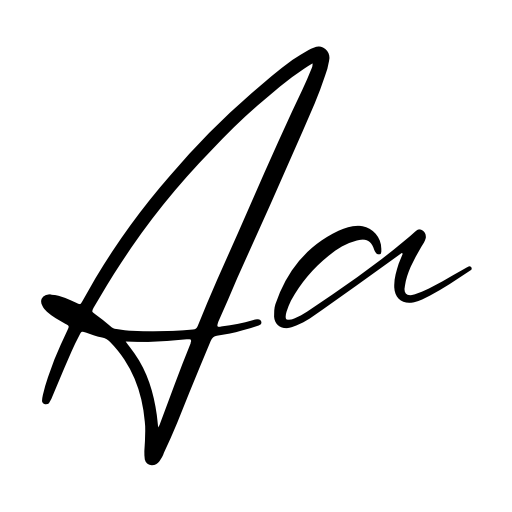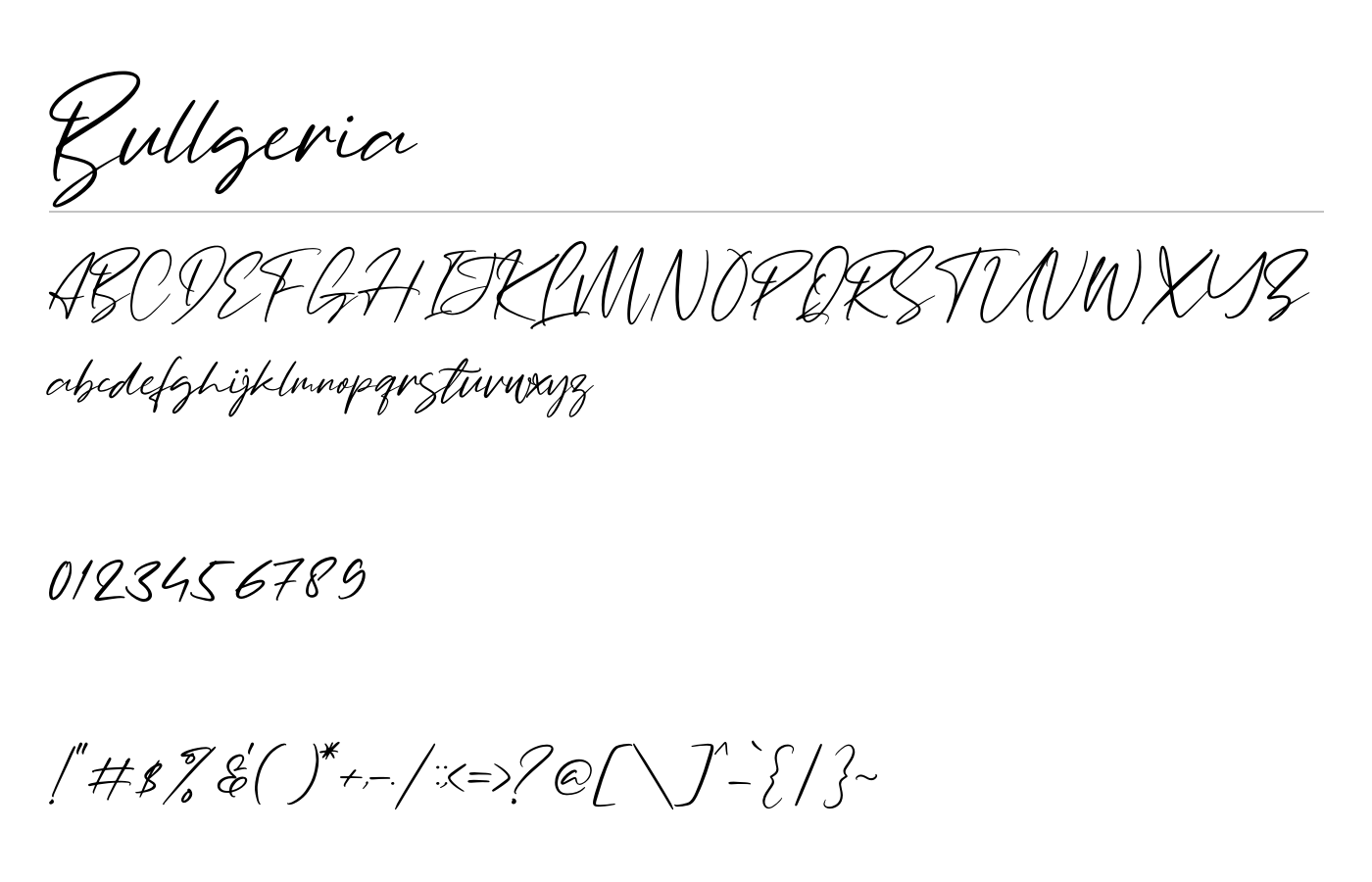
Bullgeria is an elegant script font with a light, flowing style that mimics natural handwriting. Its slender strokes and slightly condensed letterforms create a sophisticated yet approachable feel, making it ideal for invitations, branding, and personal projects that require a touch of refined charm. This font works beautifully for headlines and accents where a graceful, modern script is desired.
Bullgeria Font
About Bullgeria Font